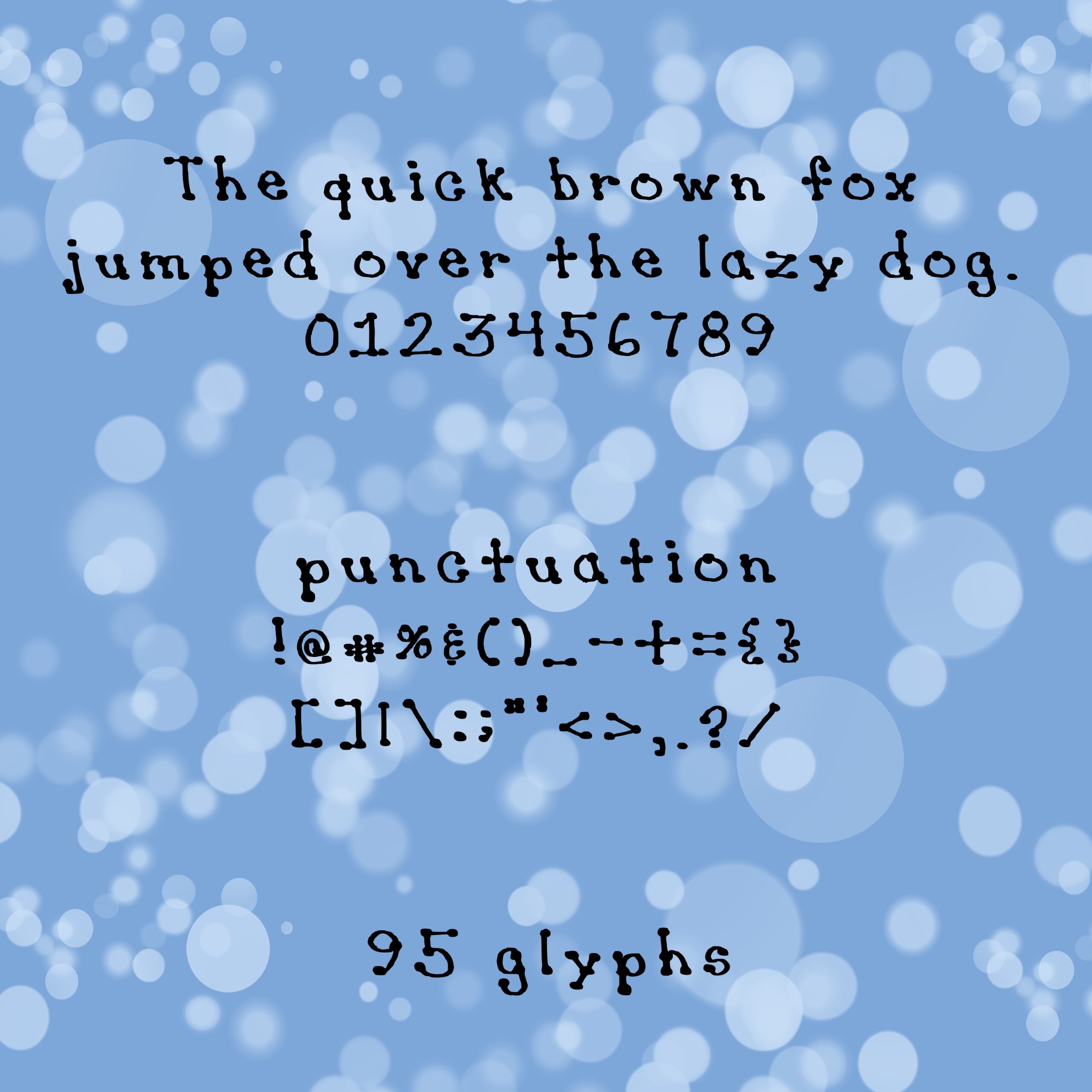
Party Dot Font
About Party Dot Font
Party Dot is a fun handwritten font including all capital and lowercase letters and numbers, and most common punctuation. This font comes with 95 glyphs in total.